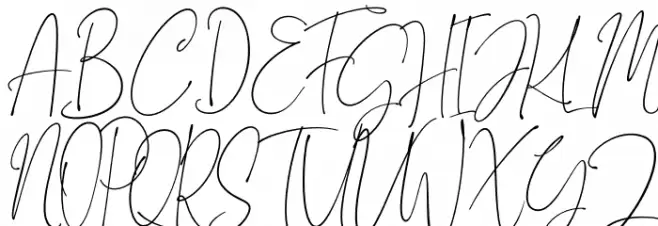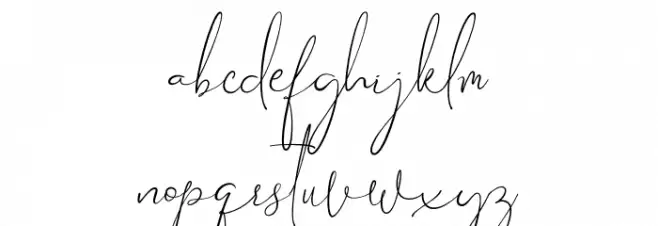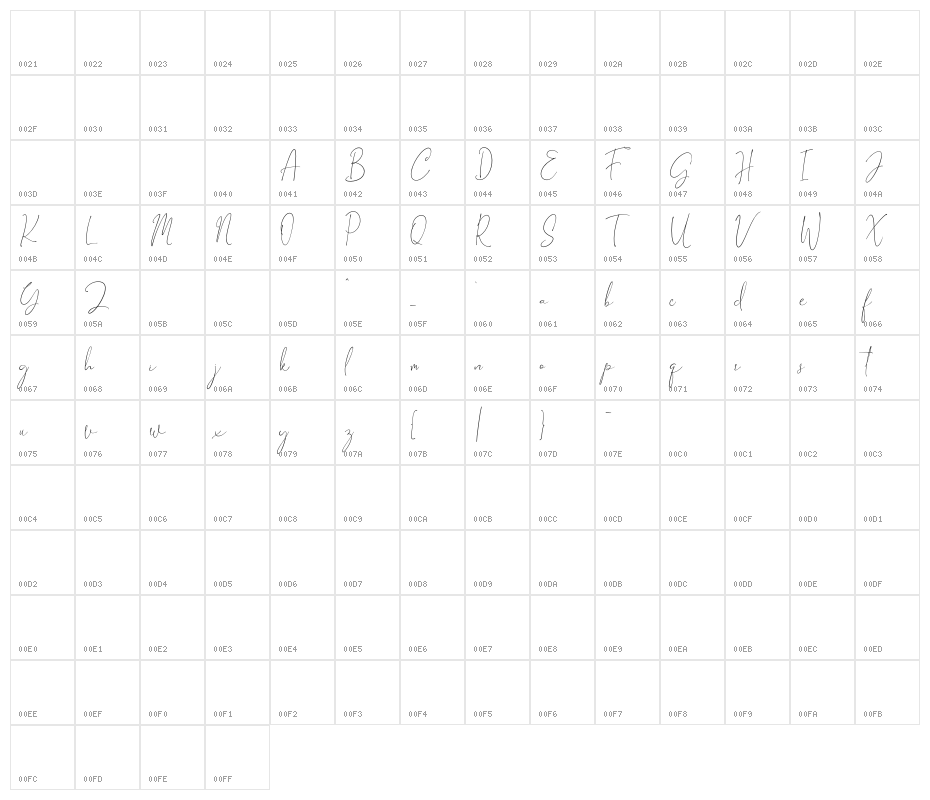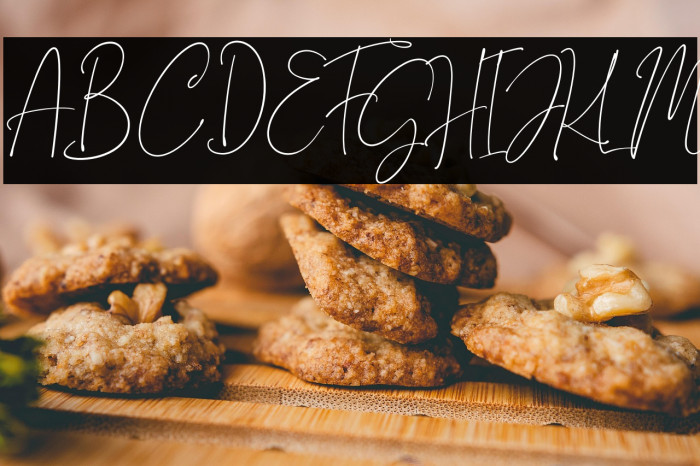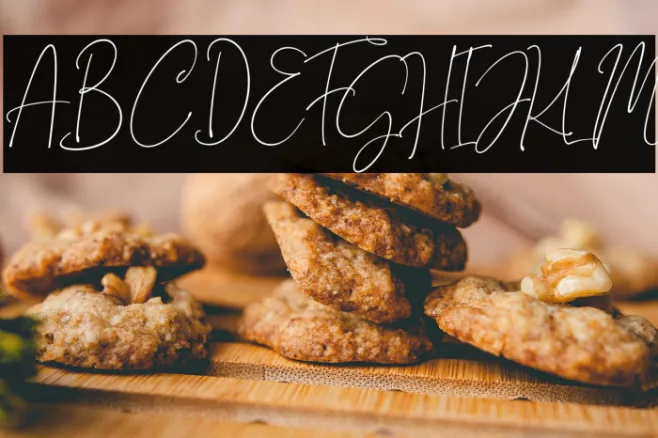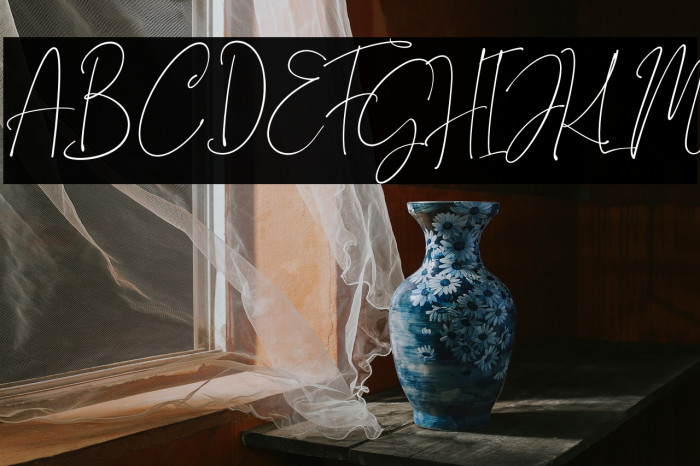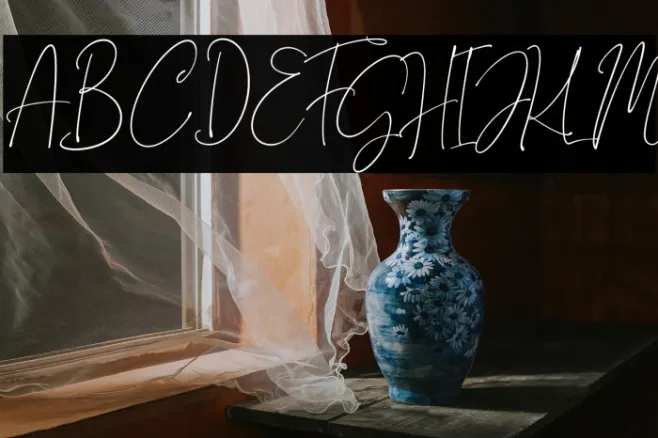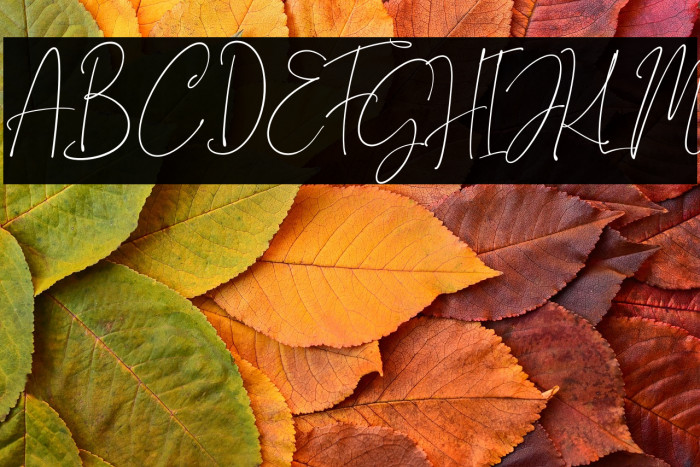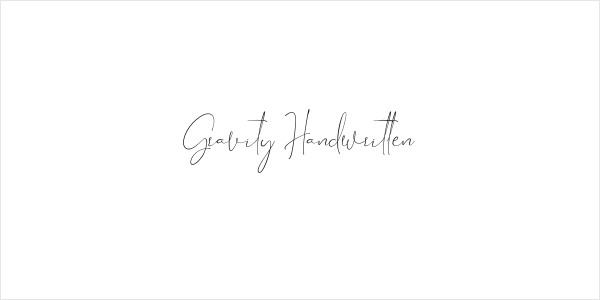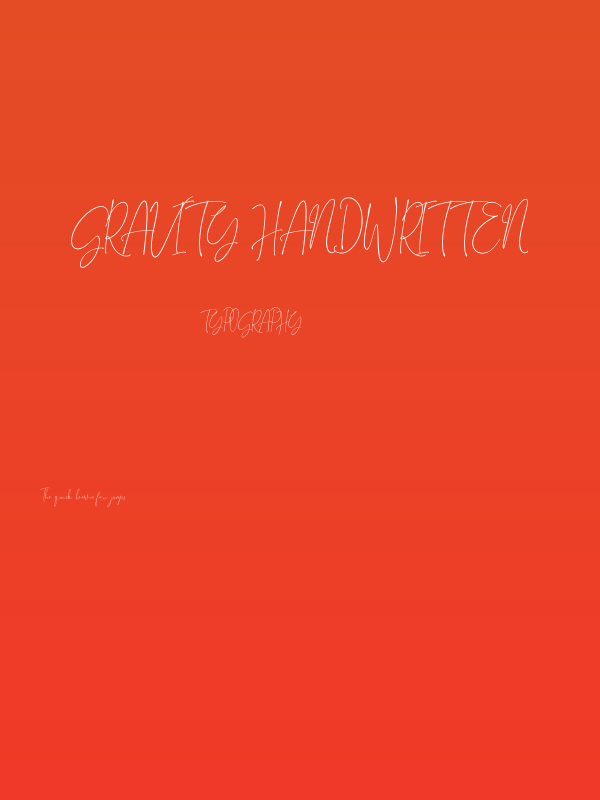
Gravity Handwritten Font
Gravity Handwritten Description
A delicate, flowing handwritten font with a modern and elegant style, featuring thin strokes and a natural, cursive appearance.
Elegant and modern handwritten font.
- Font: Gravity Handwritten
- Proposed Projects: Wedding invitations, personal branding, elegant stationery.
- Category: Handwritten
- Weight: Light
- Character Spacing: Tight
- Use Case: Logos, Invitations, Personal notes